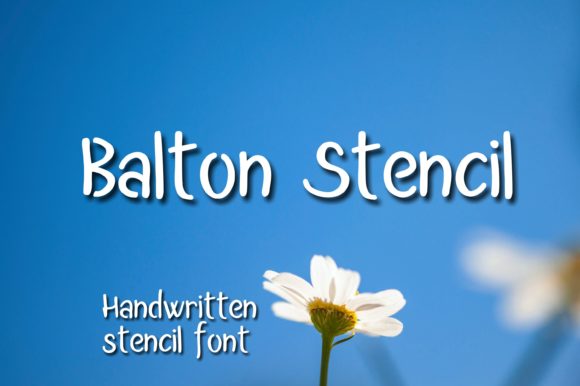
Balton Stencil Font for Creative Projects
If you're searching for a font that blends simplicity with artistic flair, Balton Stencil might be exactly what you need. This neat and simple handwritten font brings a personal touch to any design, making it ideal for both digital and physical creative projects.
What is Balton Stencil?
Balton Stencil is a clean, minimalist handwritten font designed to mimic the look of real calligraphy. It has a soft, organic feel that adds character without overwhelming the text. Its unique strokes and spacing make it stand out while maintaining readability.
This font is especially popular among creators who want to add a personal or artistic element to their work. Whether you're designing social media posts, creating DIY crafts, or working on branding materials, Balton Stencil offers a fresh and approachable aesthetic.
Why Choose Balton Stencil?
There are several reasons why Balton Stencil has become a favorite among designers and hobbyists alike:
These features make Balton Stencil a great choice for anyone looking to enhance their creative output with a touch of elegance and simplicity.
Where Can You Use Balton Stencil?
The versatility of Balton Stencil allows it to be used across multiple platforms and mediums. Here are some common applications:
1. Social Media: Use it for Instagram posts, stories, or captions to give your content a more personalized and artistic look.
2. DIY Crafts: Add it to handmade cards, scrapbooking projects, or custom labels for a unique finish.
3. Branding Materials: Incorporate it into logos, business cards, or packaging designs for a distinctive visual identity.
4. Personal Projects: Create custom quotes, journal entries, or greeting cards with a handwritten charm.
5. Educational Tools: Teachers and educators can use it in lesson plans, presentations, or student work to make learning more engaging.
No matter your skill level, Balton Stencil can help bring your ideas to life with ease and style.
Beginner-Friendly Examples
Let’s take a look at how Balton Stencil can be applied in practical situations:
These examples show how Balton Stencil can be used effectively in different contexts, from casual to professional.
Important Considerations Before Using Balton Stencil
While Balton Stencil is a versatile font, there are a few things to keep in mind before incorporating it into your projects:
Readability: Although it looks elegant, it may not be the best choice for long blocks of text. Use it for short phrases or headings where its unique style can shine without causing confusion.
Legibility: Ensure that the font remains legible when scaled down or printed. Test it in different sizes and formats to confirm it meets your needs.
By considering these factors, you can ensure that Balton Stencil enhances your work without causing any issues.
Tips for Getting the Most Out of Balton Stencil
To make the most of Balton Stencil, try experimenting with different color combinations, spacing, and layouts. Pairing it with other fonts can also create interesting contrasts and visual appeal.
Don’t be afraid to practice using it in various settings. The more you experiment, the better you’ll understand how to apply it effectively in your own creative projects.
Balton Stencil is more than just a font—it’s a tool that can elevate your creative expression and bring your ideas to life in a beautiful, personal way.